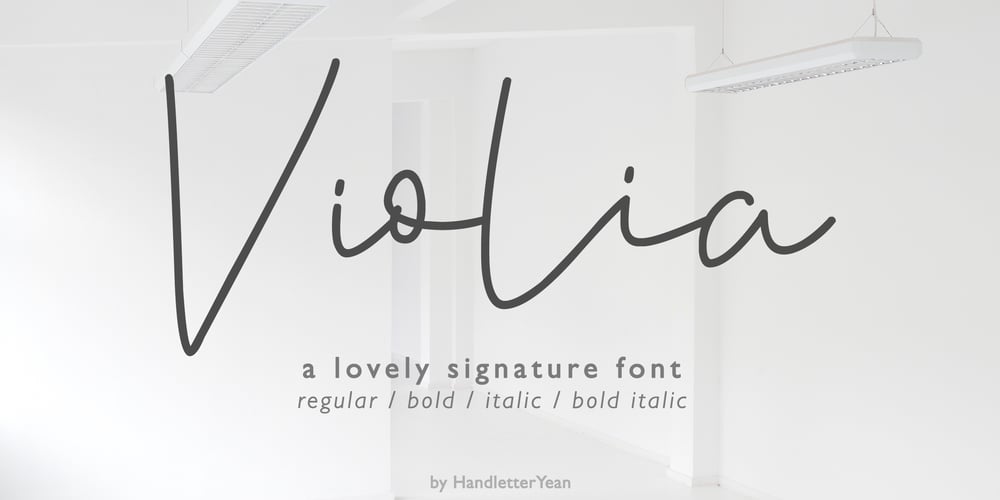
Violia Font Family was designed by Yean Aguste and published by HandletterYean. Violia contains 4 styles and family package options. Violia from HandletterYean is a simple, elegant and authentic signature font with a contemporary feel. It will add a sophisticated spark to any design idea. This font is suitable for your creative work on greeting cards, branding materials, business cards, quotes, posters, wedding cards, logo design, blog design, stationery, marketing, magazines and more! What’s included: 1. Violia (OTF) 2. Style in this font include: Regular, Bold, Italic, Bold italic 3. Works both on Mac & PC 4. Simple installations 5. Accessible in the Adobe Illustrator, Adobe Photoshop, Adobe InDesign, CorelDraw, even work on Microsoft Word. 6. Support multilingual; ä ö ü Ä Ö Ü ß ¿ ¡ To access the alternate glyphs, you need a program that supports OpenType features such as Adobe Illustrator CS, Adobe Photoshop CC, Adobe Indesign and CorelDraw. More information about how to access alternate glyphs, check out this link ( http://goo.gl/ZT7PqK )